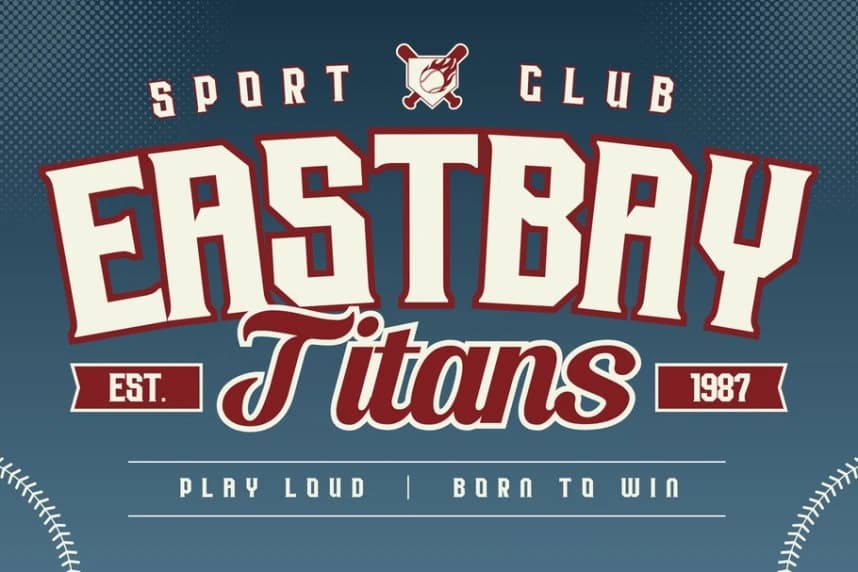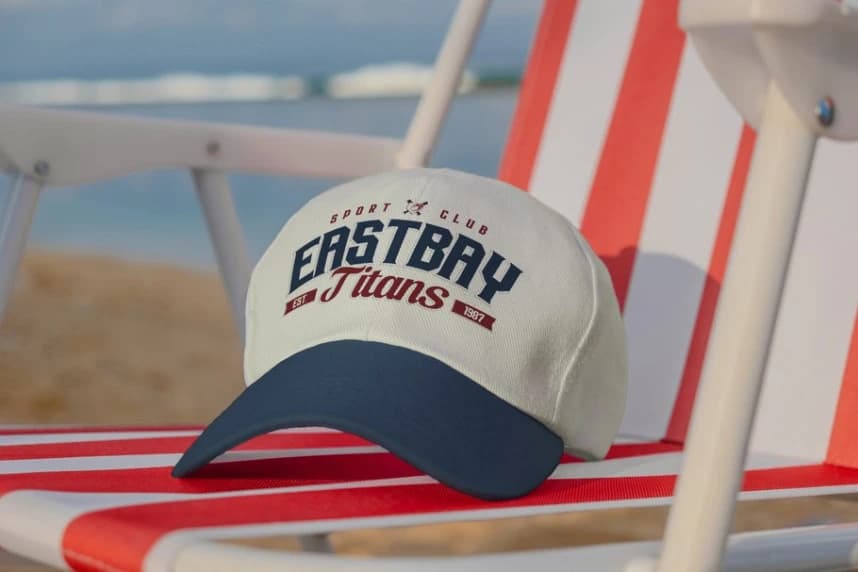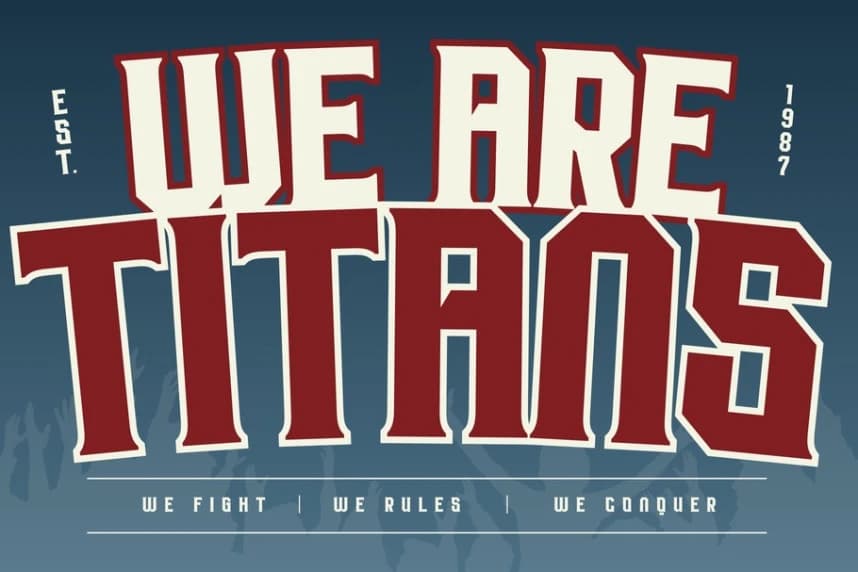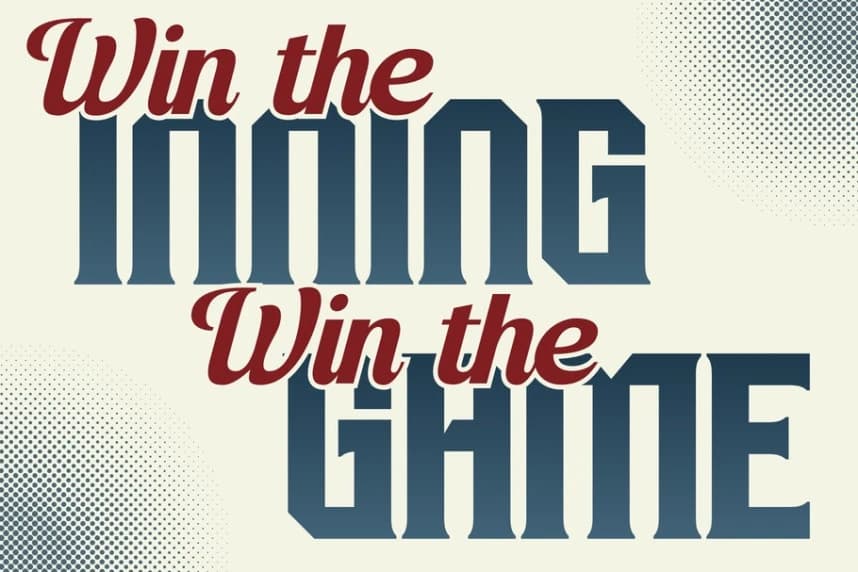
Strikies Sports Font
Strikies Sports Font is a bold and dynamic baseball-inspired font that blends classic script elegance with strong serif power. Designed for athletes and teams, it captures the spirit of the game through smooth curves and confident strokes.